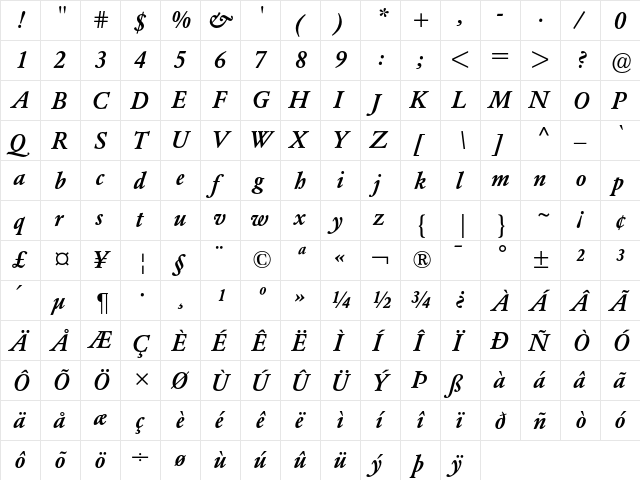
Garamond BE Medium Italic
Design Context for Garamond BE Typeface
Garamond BE offers clean, dependable letterforms without strong stylistic allegiance, making it a practical choice for designers who need flexibility. The slanted form adds forward momentum and visual energy.
Pro Tip: Use Garamond BE for emphasis, pull quotes, and subheadings where its slanted energy can add rhythm to the layout.